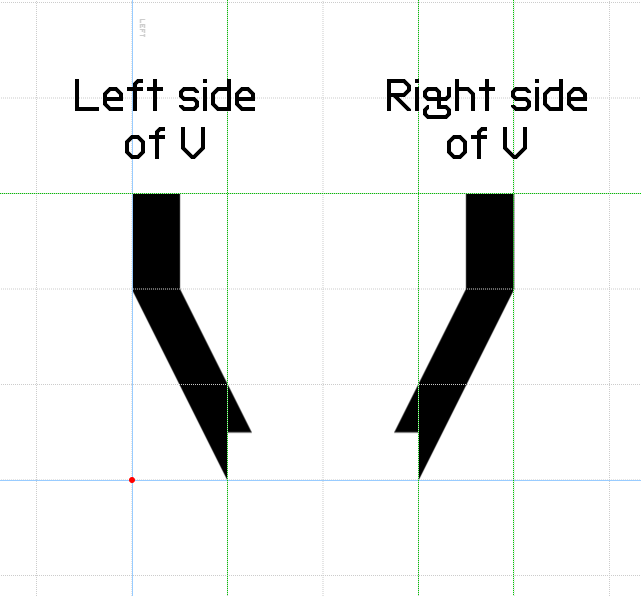
A"a B'b C?c D?d B'e F"f C?g H_h ?Ii? J@j H_k Lll L@l M*m N#n C?d P$p C?q P$r S%s #Tt# U%j U@u V)v W X_k Y+y Z%z
U@j W (ampersand) w
the ampersand is &
0. C'd
1.  ILl
2. Z%z (just "Z" :()
3. ''b
4. X
5. X
6. X
7. '"H
8. X
9. X
I was wondering if the left and right halves of the V could look like this to help improve how the V looks when connectors are placed between them
A!Be for letter ash
C?Be for letter ethel